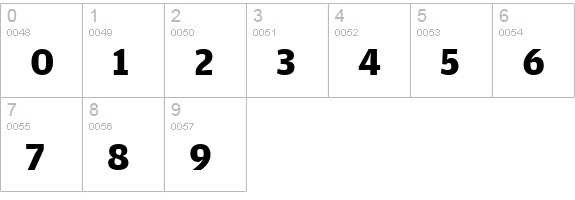
Amplitude-Bold is a strong, high-contrast variant in the Amplitude typeface family \xE2\x80\x94 well suited to headlines, attention-grabbing titles, and strong calls-to-action.
Amplitude-Bold is a striking and versatile typeface that exudes confidence and modernity. With its bold and impactful design, this font is perfect for making a statement in headlines, titles, and branding materials. The strong, clean lines of Amplitude-Bold give it a contemporary and professional look that will command attention in any design project. The best part? You can download Amplitude-Bold for free at FontsMarket.com. This means that you have access to a high-quality and stylish font without any cost, making it a valuable addition to your font library. Whether you're working on a website, poster, logo, or any other creative project, Amplitude-Bold will elevate your design with its bold and distinctive aesthetic. Don't miss out on this opportunity to enhance your designs with the bold and impactful Amplitude-Bold font, available for free download at FontsMarket.com.